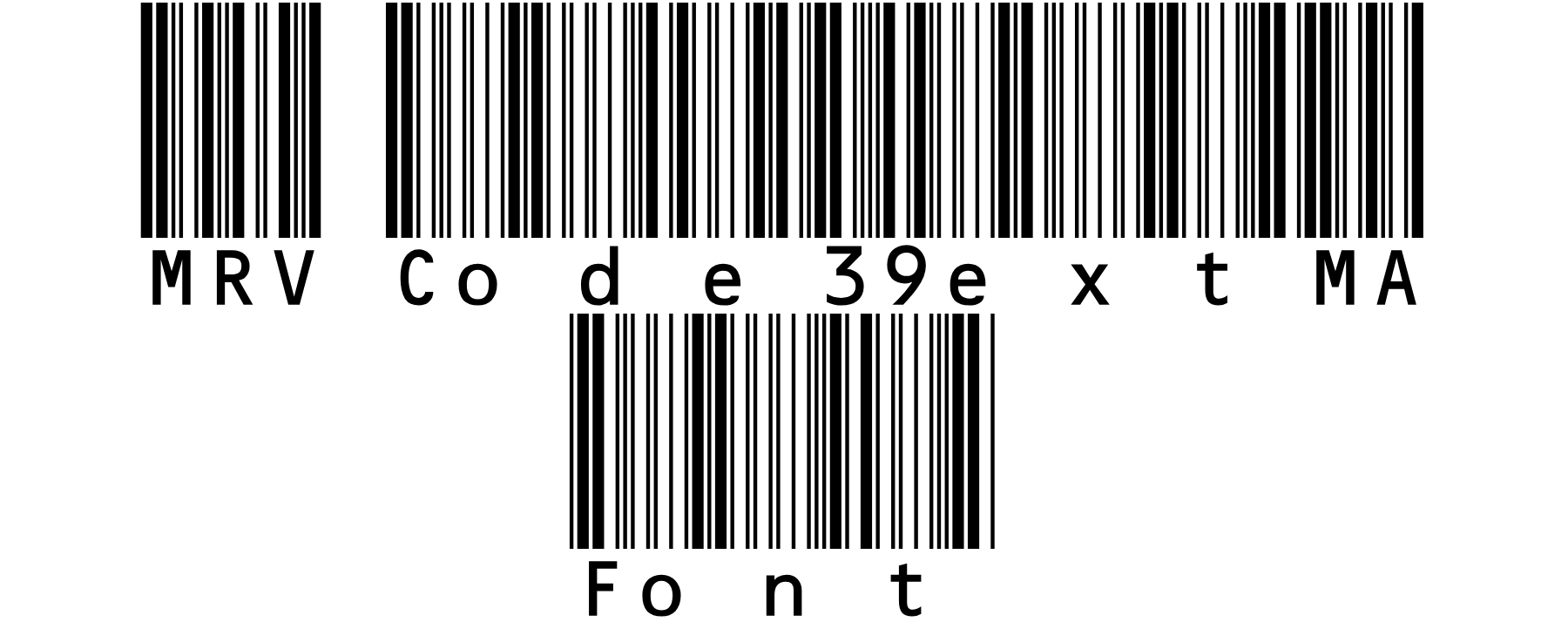
MRV Code39extMA
MRV Code39extMA is a fancy font (2004). Bold and full of character, it's built to stand out rather than blend in. You can download it for free and test it with your own words in the preview above.
MRV Code39extMA covers the full alphabet in upper and lowercase, plus all ten numbers, so you can set names, dates and prices without switching fonts. Everyday marks like &, !, ? and @ are there too. It has 56 accented letters, but not the full set for Spanish or French, so test any non-English words first.
MRV Code39extMA is a natural fit for posters, logos and eye-catching headlines. The file has no kerning data, so in logos and big titles check pairs like AV, To and Wa and tighten the spacing by hand. Use it for one standout word or headline and let simpler fonts handle the rest.